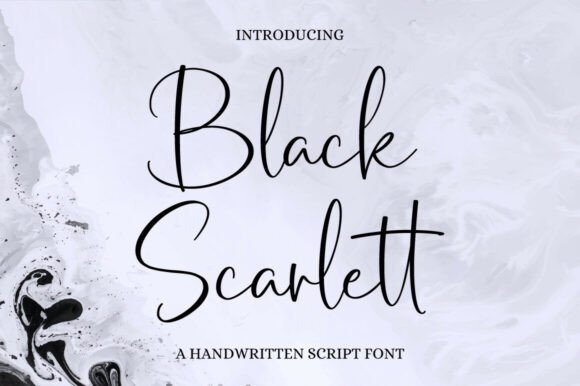
Unleashing Elegance with the Black Scarlett Font
As designers, we’ve all been there – staring at a blank canvas, searching for the perfect font to bring our vision to life. For me, it’s the moment when a font’s curves and lines start to dance on the page, and I know I’ve found ‘the one’. This is exactly what happens when you lay eyes on the Black Scarlett Font – a beautiful, well-balanced, and graceful script font that’s sure to captivate your audience.
| 👤 Author | Graphix Line Studio |
The Black Scarlett Font is designed to evoke the essence of sophistication and style, making it perfect for fashion branding or editorial designs. Its smooth curves and elegant lines create a sense of refinement that’s hard to find in other fonts. For designers, the Black Scarlett Font is a valuable addition to their toolkit, offering a unique way to add a touch of glamour to their designs.
- Unique Characteristics: Features a sleek, modern design with a bold and edgy feel, making it ideal for use in headings, titles, and other display text
Black Scarlett Font Review
I’ve had the chance to work with the Black Scarlett font, and here’s my honest take on it.
Unique design: The Black Scarlett font has a bold, edgy feel to it that sets it apart from more traditional fonts.
High contrast: The combination of thick and thin lines creates a nice visual contrast that makes the text stand out.
Perfect for bold statements: The font is ideal for headings, titles, and any other text that needs to make a strong impression.
Difficult to read at small sizes: The font can become hard to read when used in smaller sizes, which may limit its use in certain applications.
Not suitable for body text: The font’s bold nature makes it challenging to read for extended periods, making it less suitable for large blocks of text.
Overall, the Black Scarlett font is a great choice for making bold statements or adding a touch of edginess to your design. While it may have its limitations, it’s a unique and effective font that can help elevate your visual identity.
The Black Scarlett font is ideal for use in bold, dramatic headings and titles. It’s also great for creating a sense of sophistication and elegance in your designs. Some common use cases include:
– Magazine and newspaper headlines
– Advertising and marketing materials
– Branding and logo design
– Web design and development